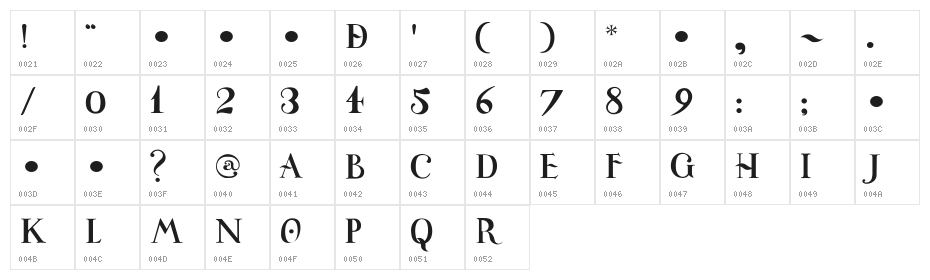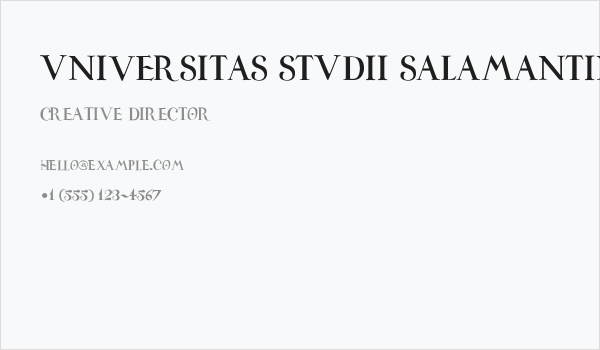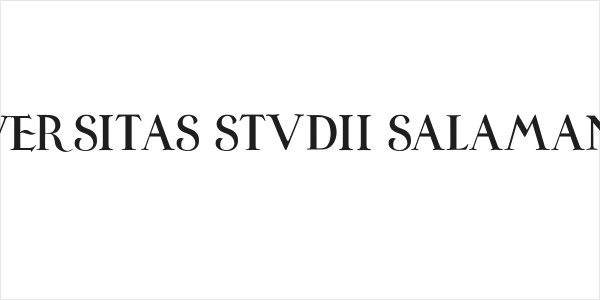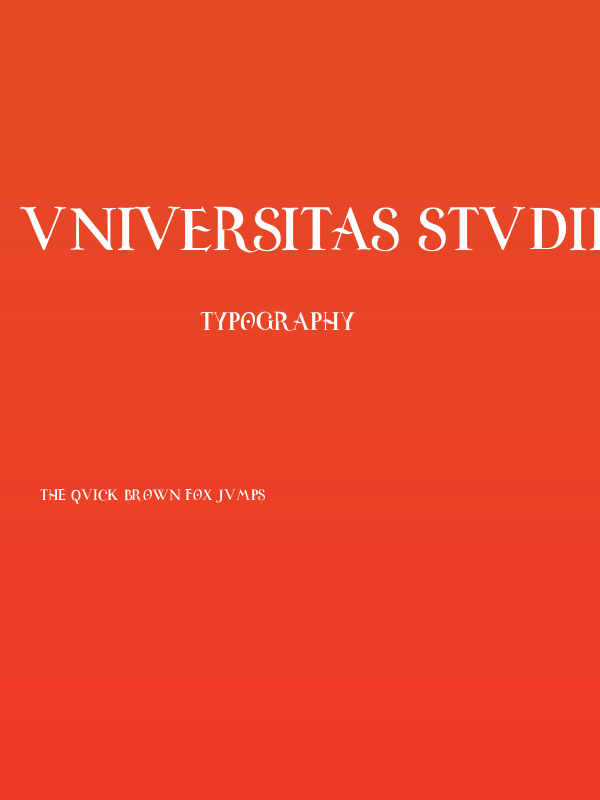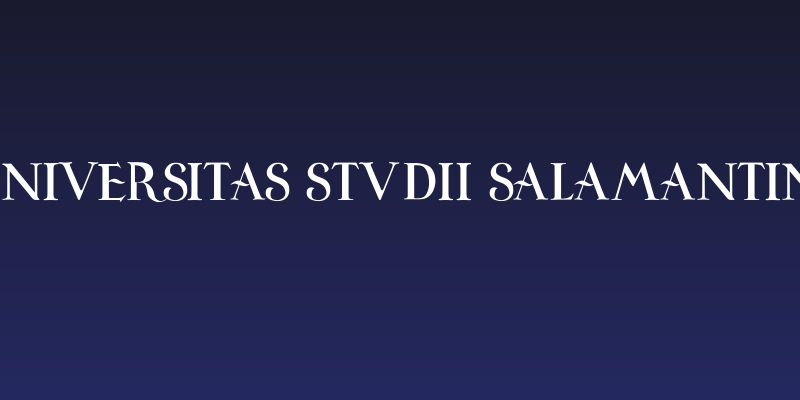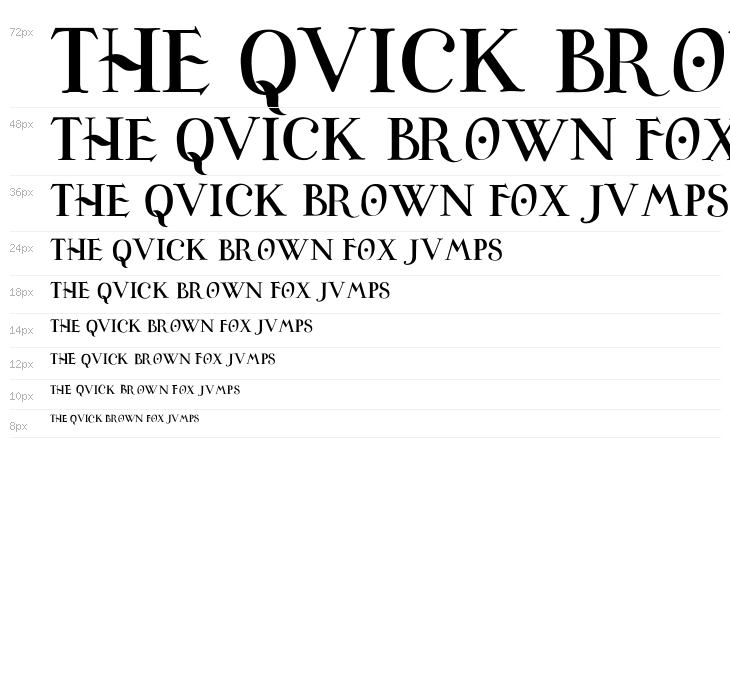
Universitas Studii Salamantini Font
Universitas Studii Salamantini Description
This font exhibits a classic and elegant style with a distinct serif design. The characters are characterized by sharp, pointed serifs and a moderate contrast in stroke thickness, giving it a sophisticated and formal appearance. The uppercase letters have a strong presence with unique features, such as the pointed tips on the 'A' and 'M', and the distinctive loop in the 'Q'. The lowercase letters maintain the same elegance with a slightly more subdued flair. Numerals are bold and consistent with the overall style, featuring curved and angular elements. The special characters complement the font's aesthetic, maintaining the same level of detail and refinement.
| Use Case | Headlines, Formal documents, Invitations |
| Proposed Projects | Ideal for formal documents, certificates, invitations, and branding that requires a touch of sophistication. |